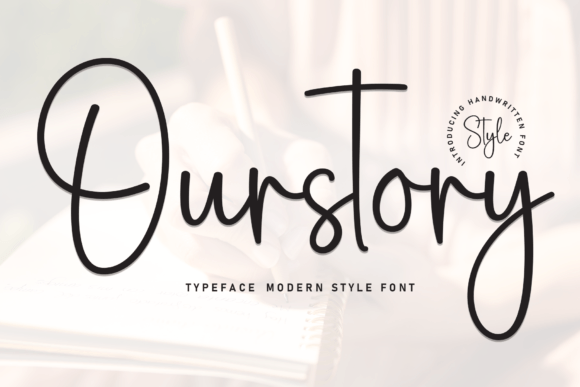
Introducing Ourstory Font, a captivating addition to your font collection that will elevate your designs to a whole new level of elegance and sophistication. Crafted by the talented andikastudio, this flowing handwritten font is designed to bring a touch of class to your creative projects.
With its timeless style and elegant touch, Ourstory Font is the perfect choice for minimalist designs that exude simplicity and refinement. Whether you're creating wedding invitations, branding materials, or social media graphics, this font will effortlessly add a touch of charm and sophistication.
The beauty of Ourstory Font lies in its versatility. It can seamlessly adapt to various design styles, making it a valuable asset for both personal and professional projects. Transform plain text into a work of art with its graceful curves and gentle strokes, leaving a lasting impression on anyone who lays eyes on your creations.
This font is more than just a tool; it's an invitation to tell your story through design. Let your imagination run wild as you explore the endless possibilities this font offers. From elegant logos to stunning typography, Ourstory Font will help you create designs that truly stand out.
But it's not just about aesthetics; Ourstory Font is also meticulously crafted to ensure legibility and readability. Every letter and character is thoughtfully designed, allowing your audience to effortlessly absorb your message without any distractions.